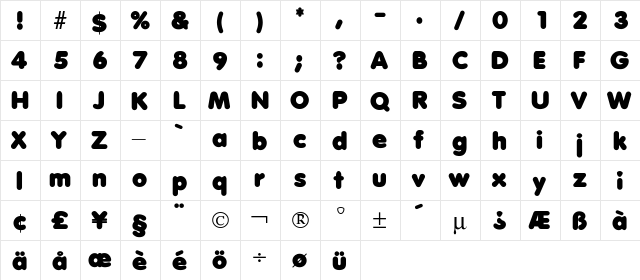
Debussy Regular
Design Context for Debussy Typeface
Debussy takes a measured approach to typography — its balanced proportions and neutral character make it a reliable workhorse for both digital and print work.